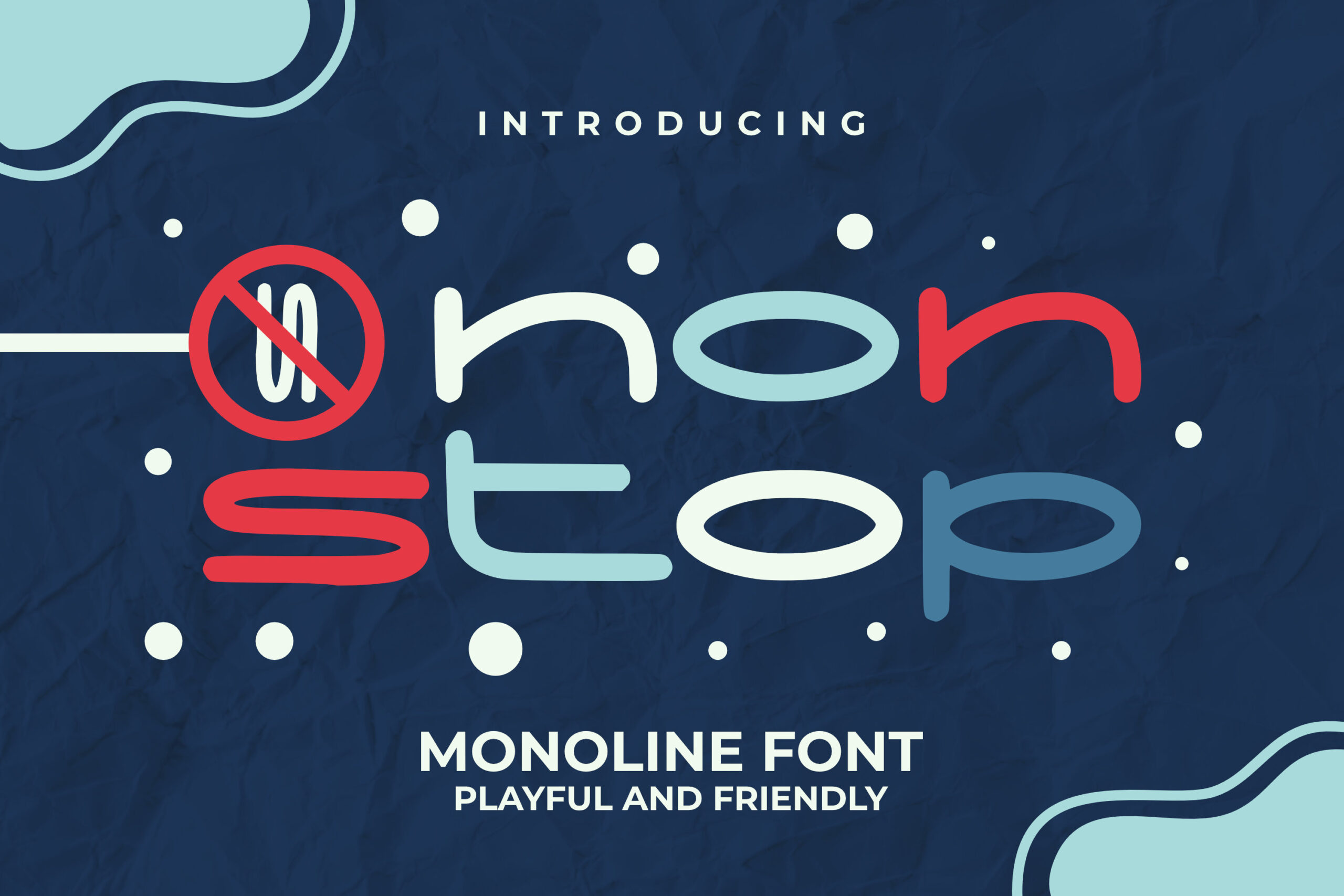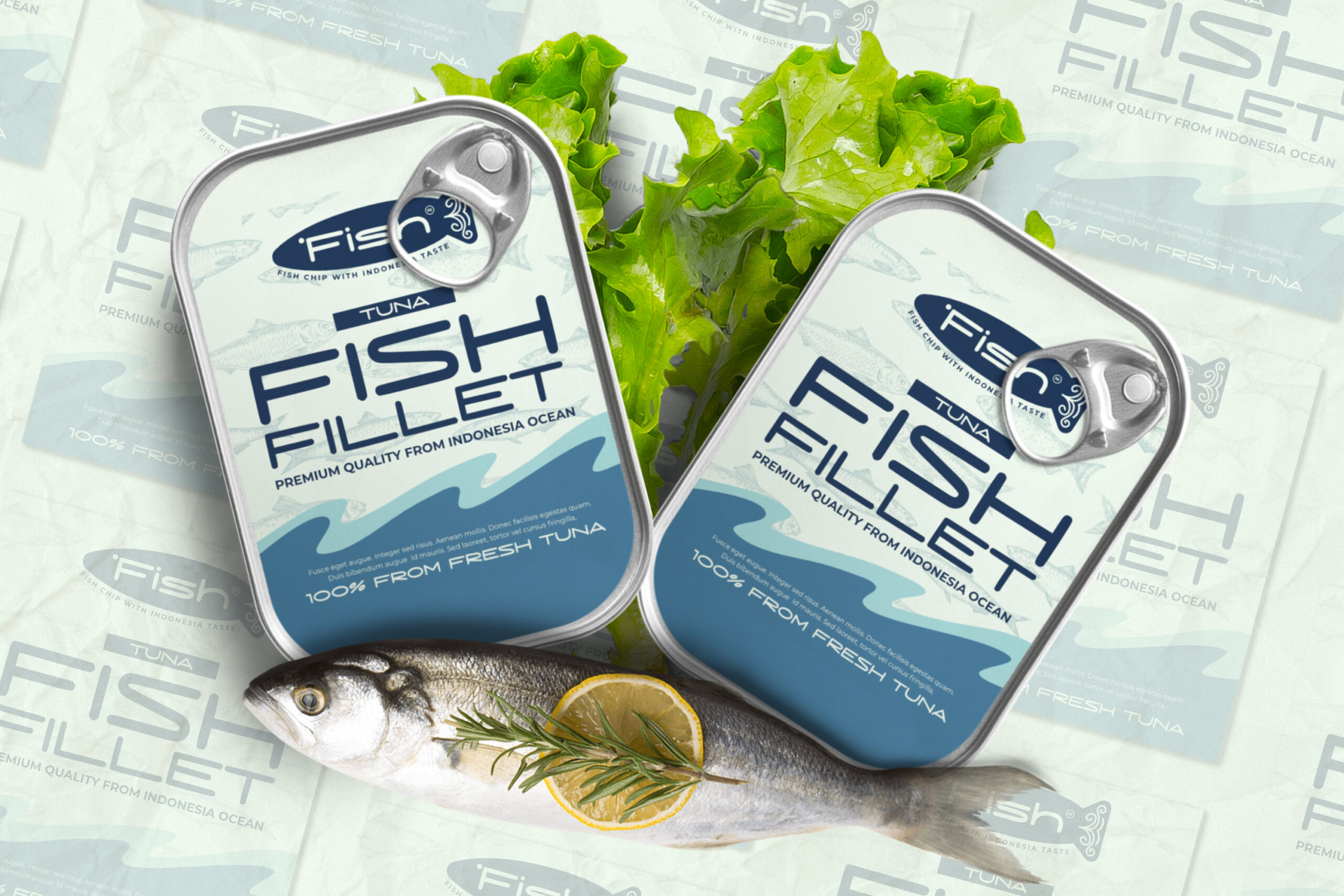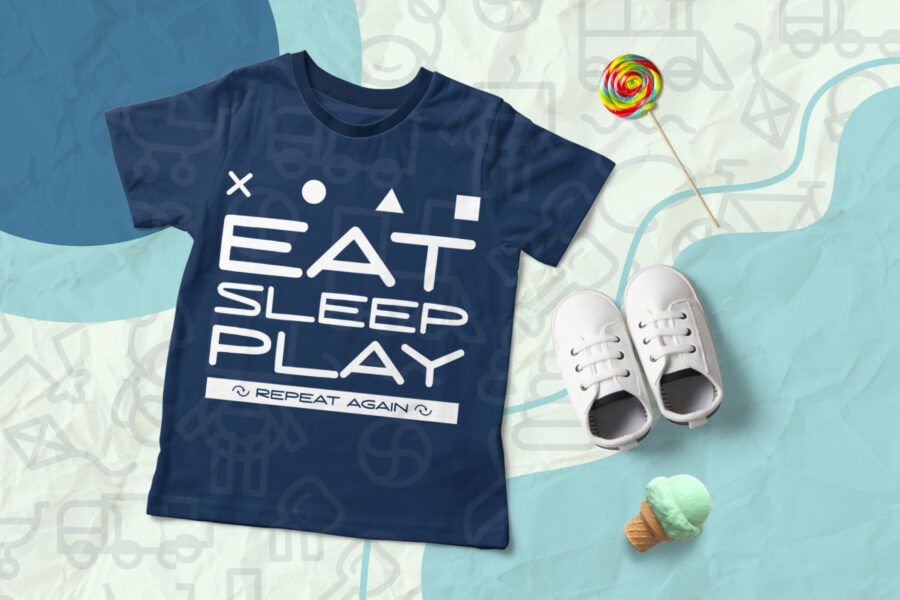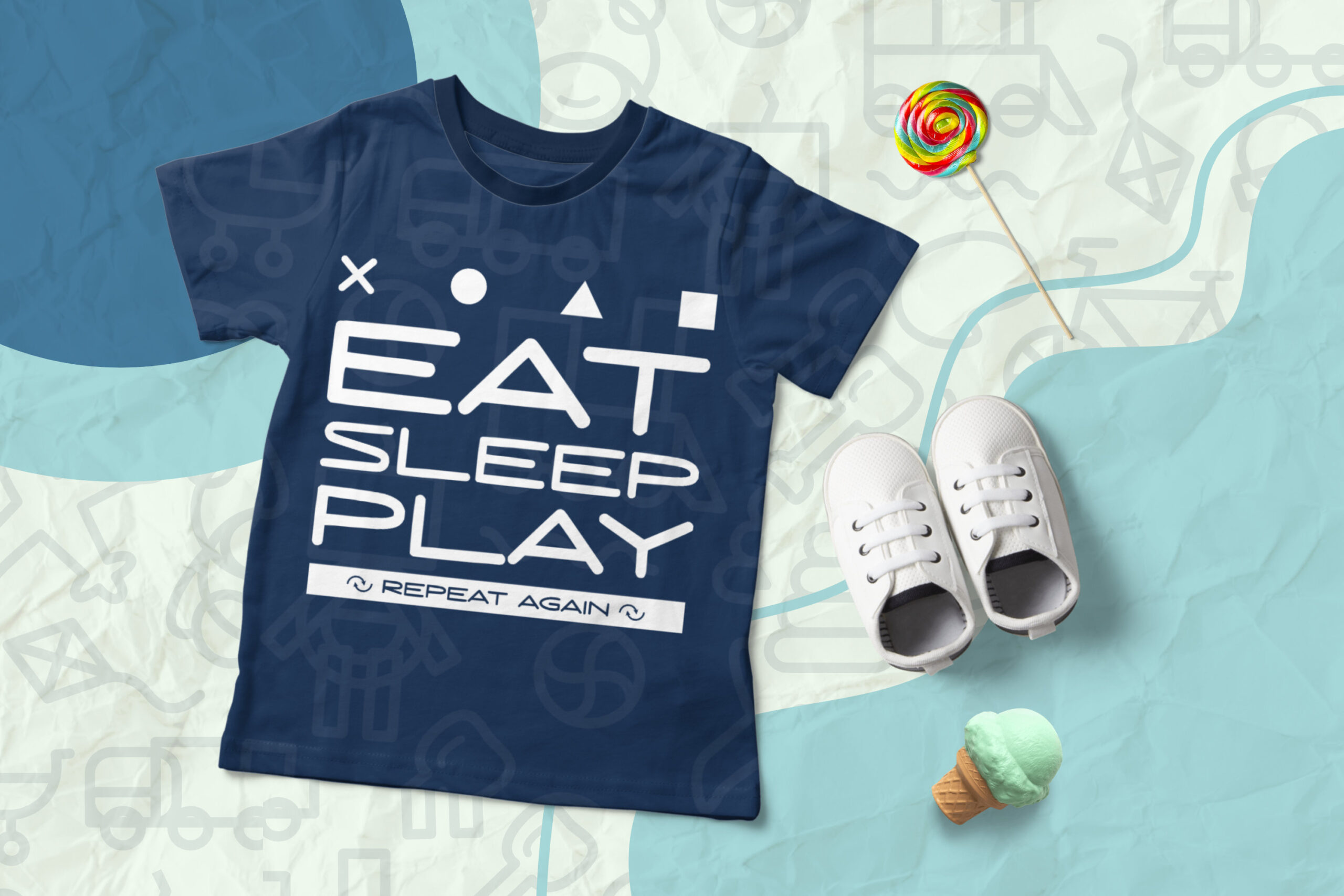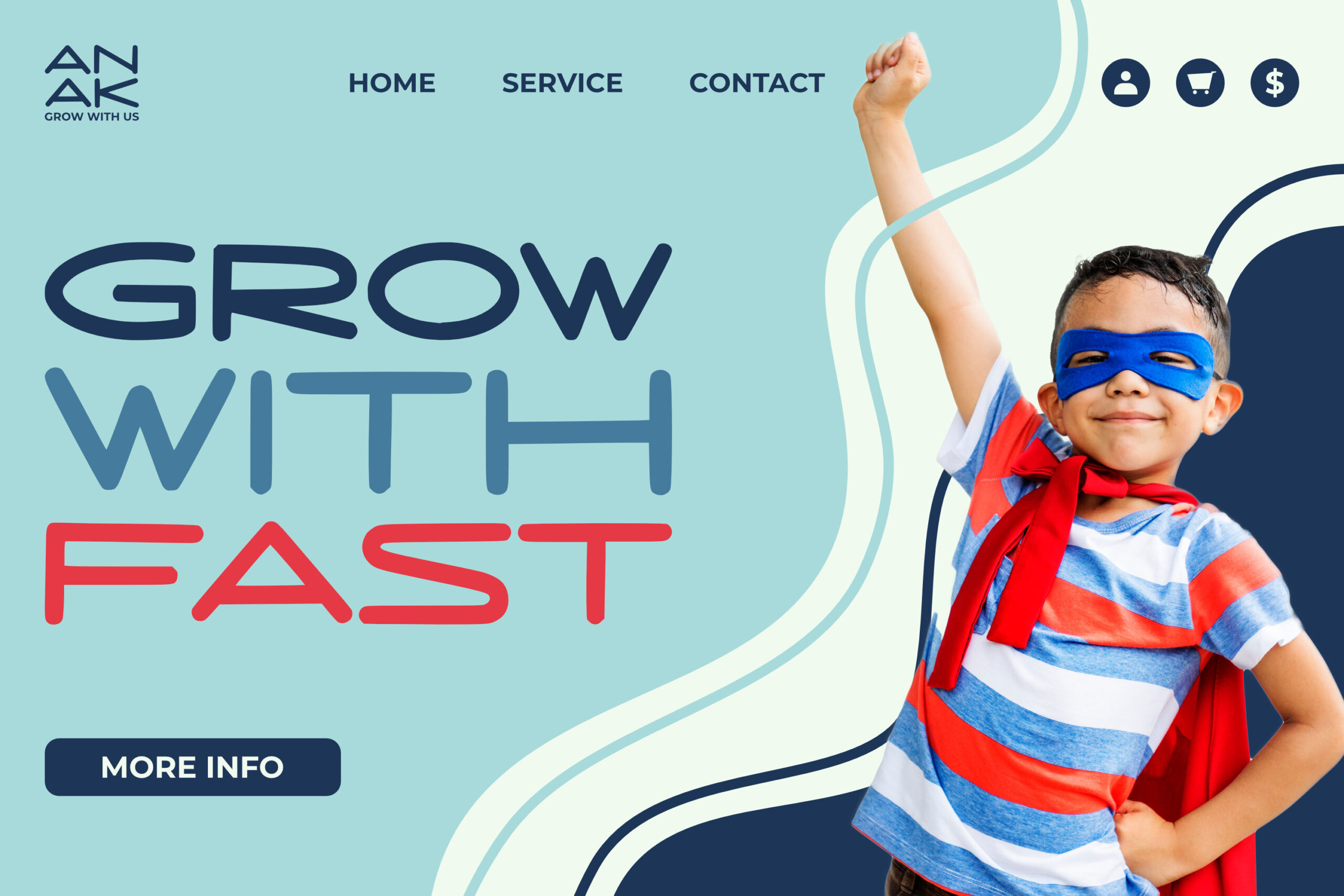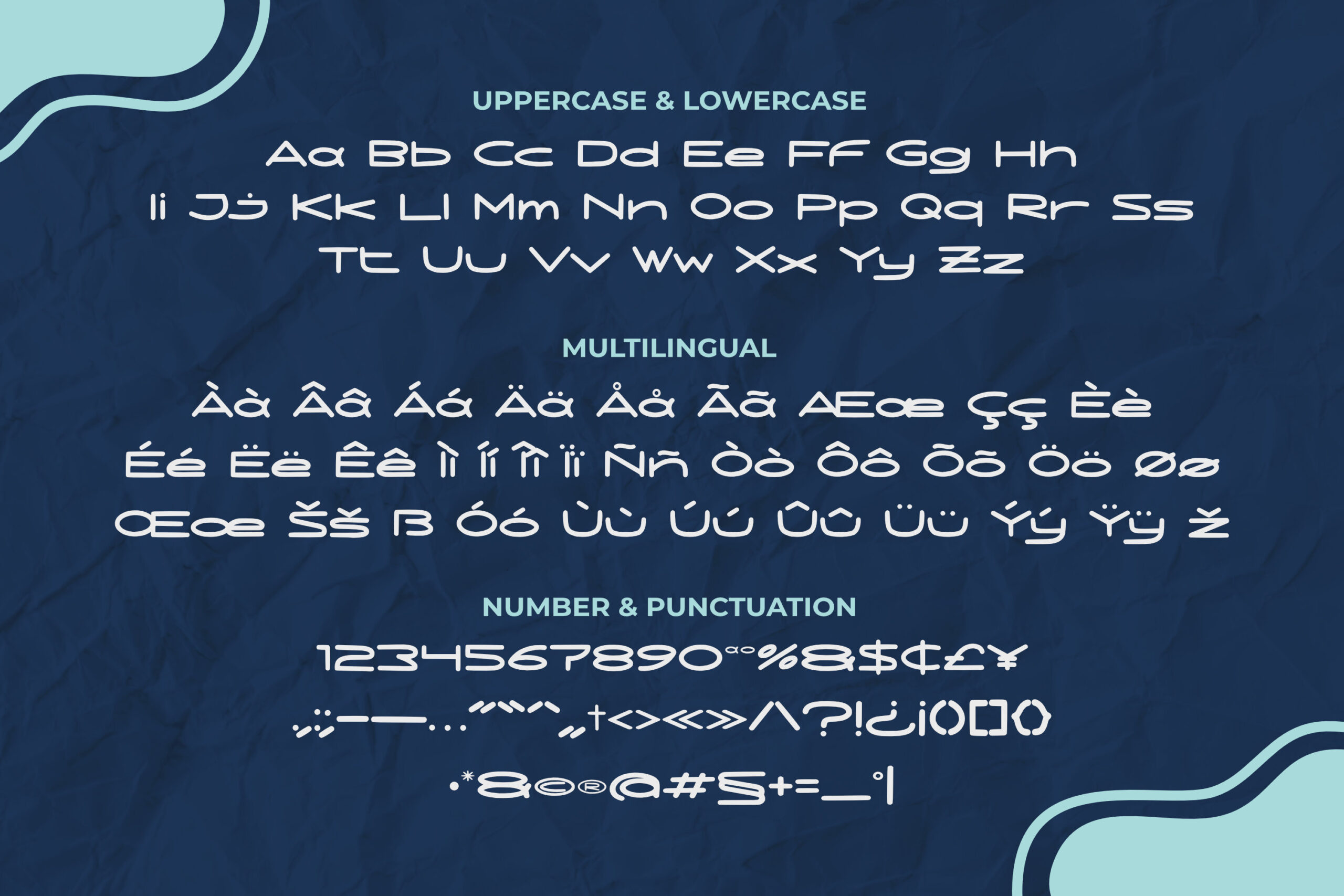
Non Stop is a playful and friendly monoline font designed to energize your creative projects with a fun, modern twist. With its rounded curves, clean lines, and slightly futuristic forms, this font is perfect for use in children’s products, educational designs, casual branding, and creative packaging. Its dynamic and approachable style makes every word look expressive, lighthearted, and visually engaging.
Equipped with uppercase, lowercase, multilingual characters, and full punctuation, Non Stop is as versatile as it is charming. Whether used for web interfaces, t-shirt slogans, or eco-product labels, this font will add a fresh and vibrant personality to your design.
Non Stop